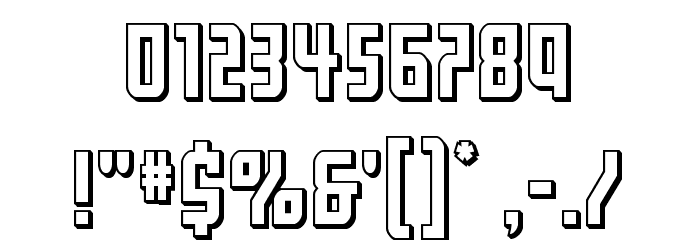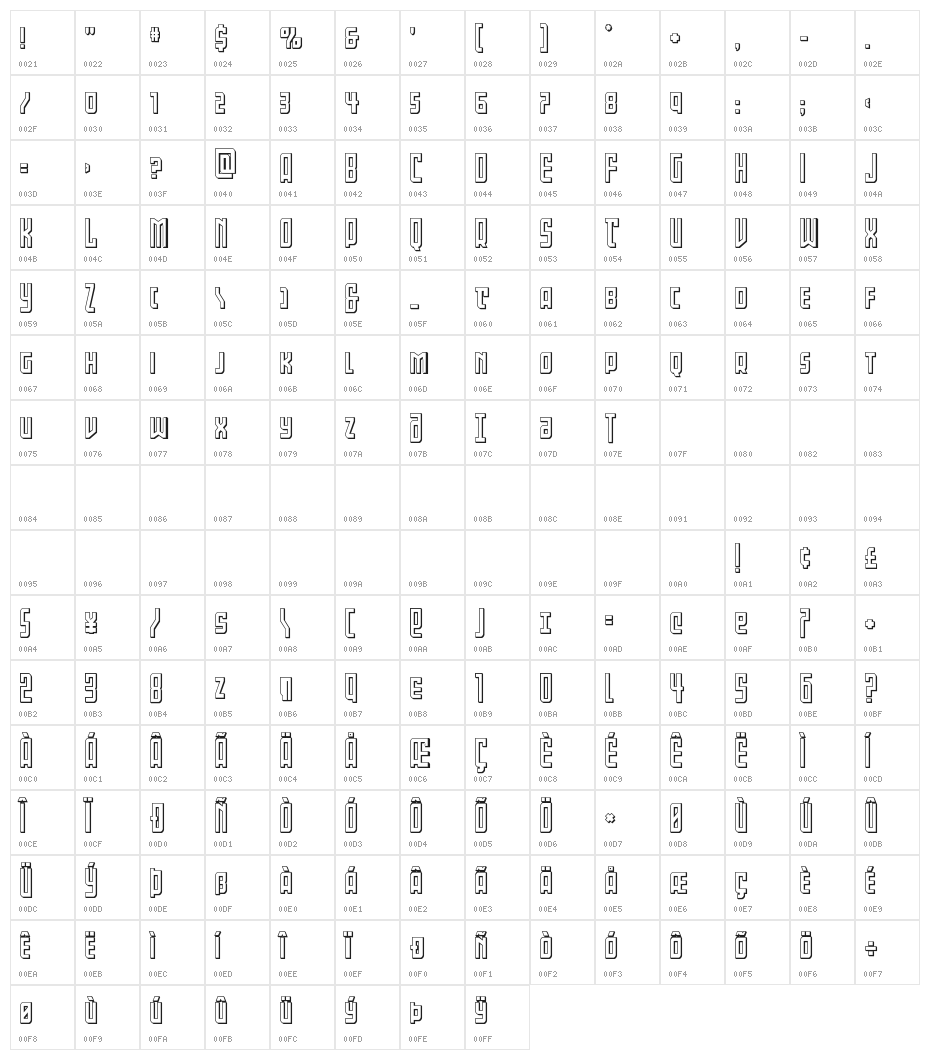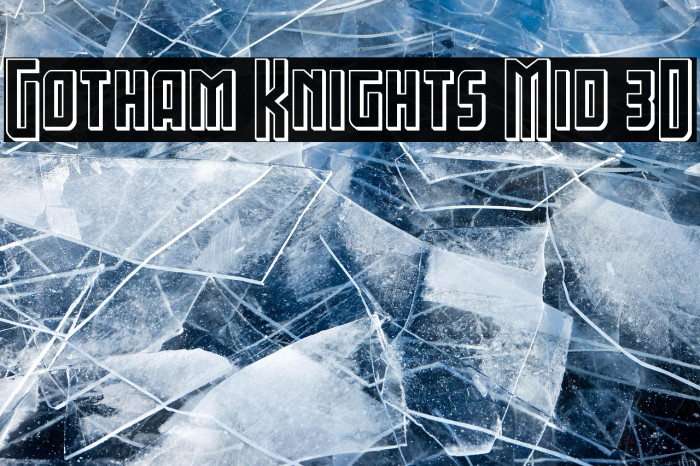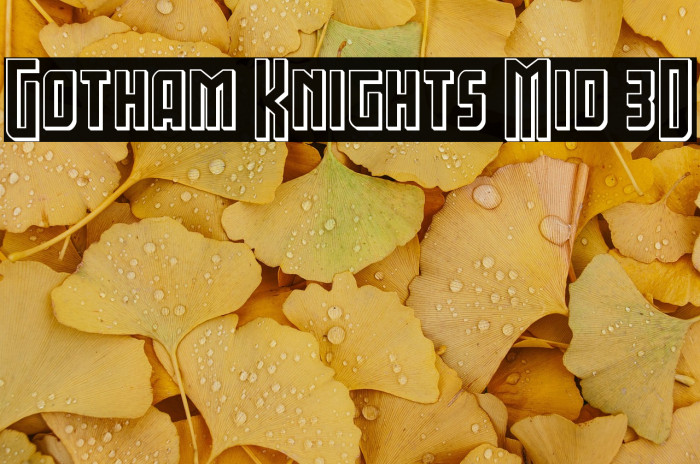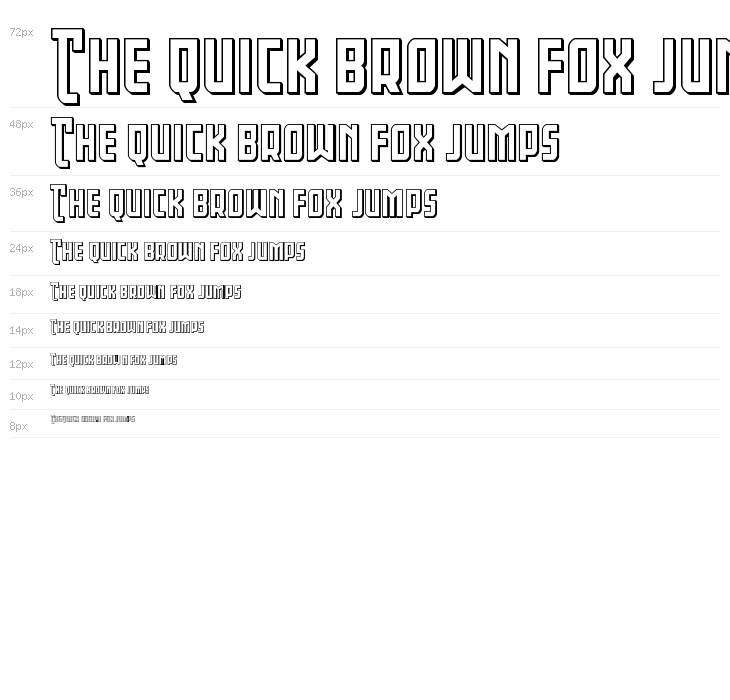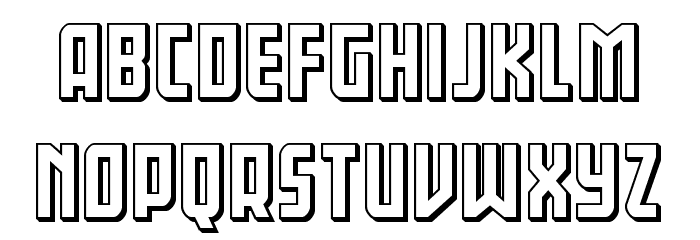
Gotham Knights Mid 3D Font
Gotham Knights Mid 3D Description
This font features a bold, geometric design with a three-dimensional effect, giving it a striking and modern appearance. The uppercase letters are characterized by sharp angles and clean lines, creating a sense of depth and structure. The numerals and special characters maintain this consistent style, ensuring a cohesive look across all text. The font's unique 3D effect is achieved through the use of shadowing and layering, making it stand out in any design. Its boldness and distinct style make it ideal for attention-grabbing headlines and logos.
| Proposed Projects | Ideal for video game titles, movie posters, branding, and any project requiring a futuristic or dynamic look. |